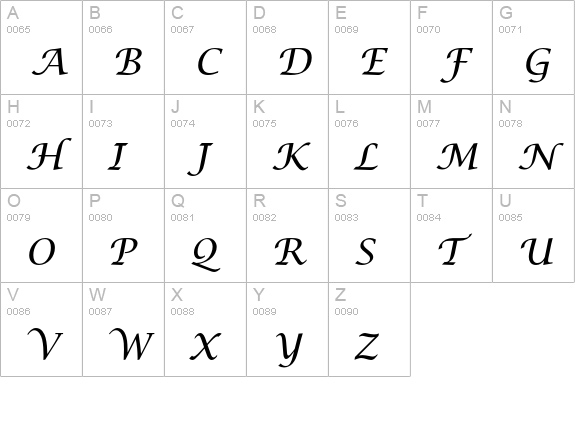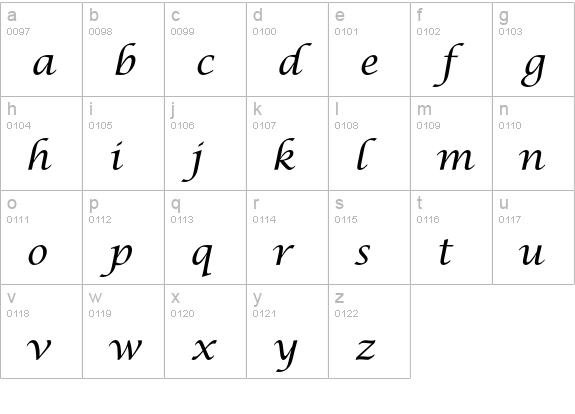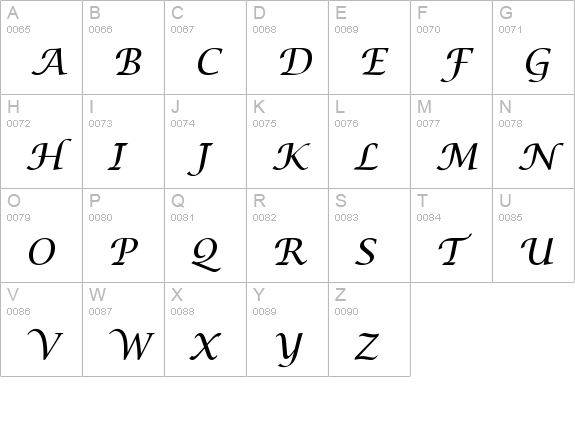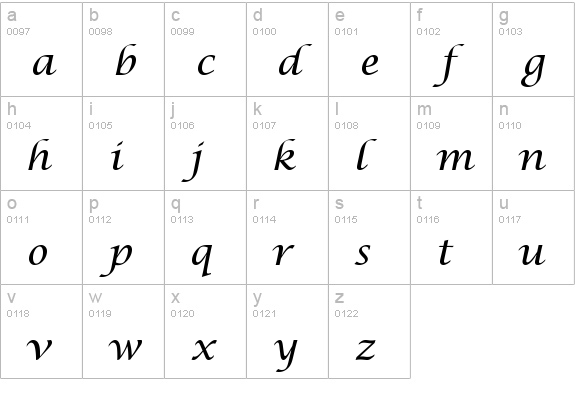
LucidaCalligraphyEF Font Details
Lucida Calligraphy EF is an elegant and sophisticated font that exudes a sense of timeless beauty and refinement. With its graceful curves and delicate strokes, this font is perfect for adding a touch of class to any project or design. Whether you are creating wedding invitations, elegant logos, or artistic lettering, Lucida Calligraphy EF will elevate your work to a new level of sophistication. And the best part? Lucida Calligraphy EF is available for free download at FontsMarket.com. This means you can easily access this stunning font without any cost, making it a valuable addition to your font collection. Embrace the beauty and elegance of Lucida Calligraphy EF in your designs today!